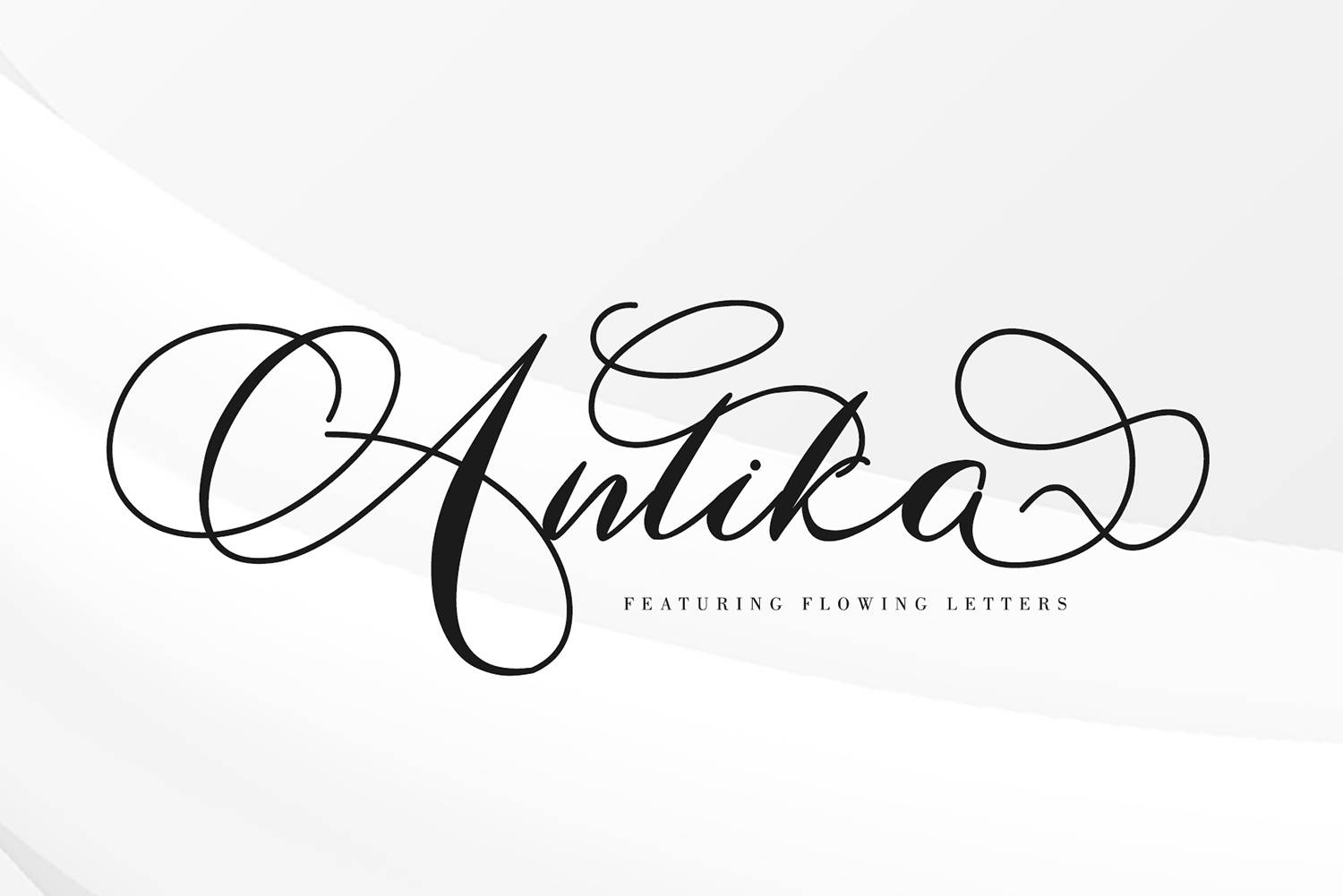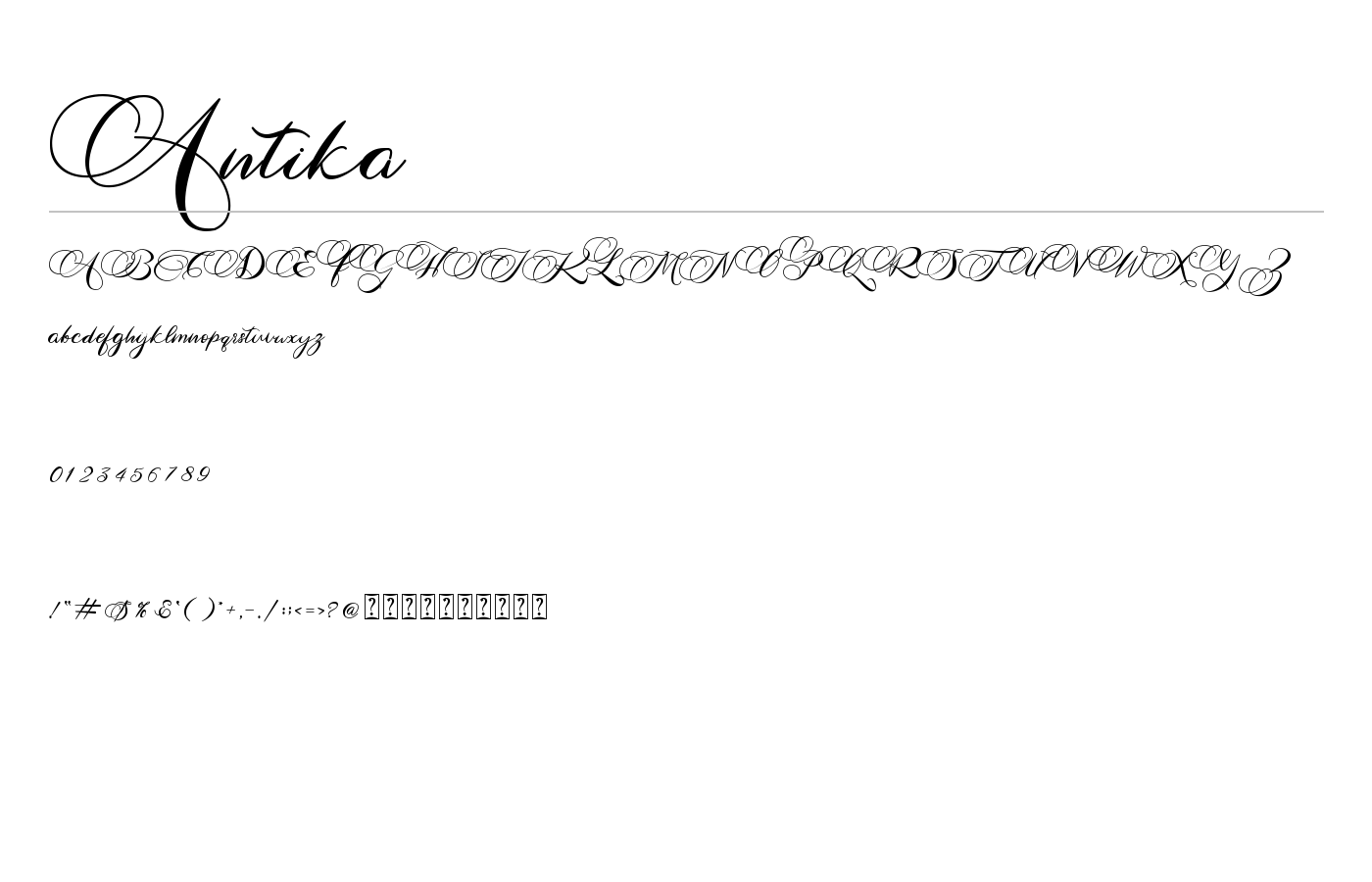
Antika is an elegant script font characterized by its flowing, delicate strokes and graceful, high-contrast calligraphic style. Its ornate uppercase letters and refined lowercase forms convey a sense of luxury and sophistication, making it ideal for wedding invitations, branding, and decorative headlines where a classic, romantic feel is desired. This font shines in designs that require a refined, timeless touch with its beautifully intricate letterforms.
Antika Font
About Antika Font
| Font family | Antika Font |
| Designer | Letterara 2019 |